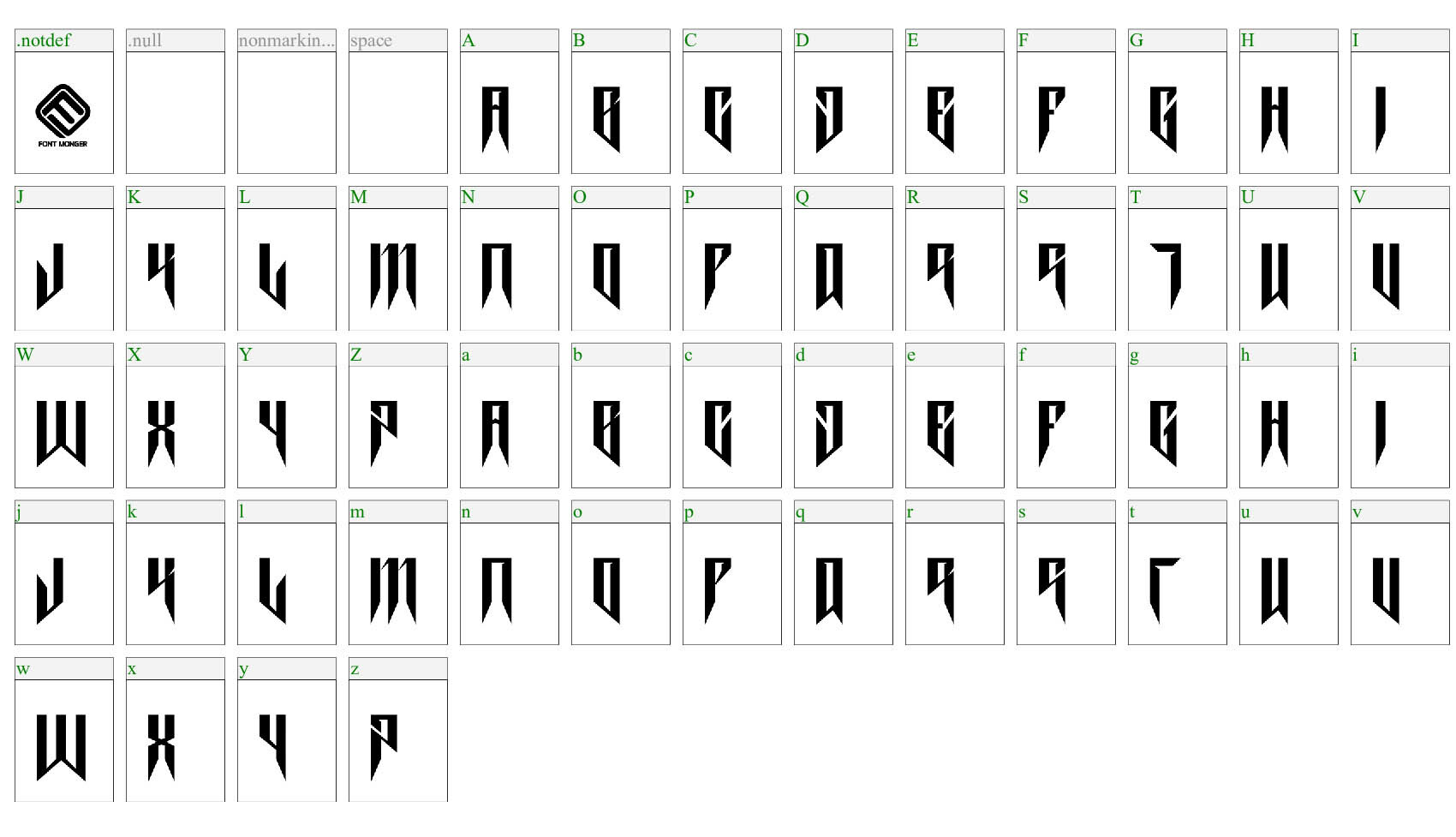
Uppercase: Yes
Lowercase: Same as uppercase, the letter T differs from uppercase
Numbers: No
Symbols: No
Accents: Available upon request
Theme: Trash, Square, Modern, gothic